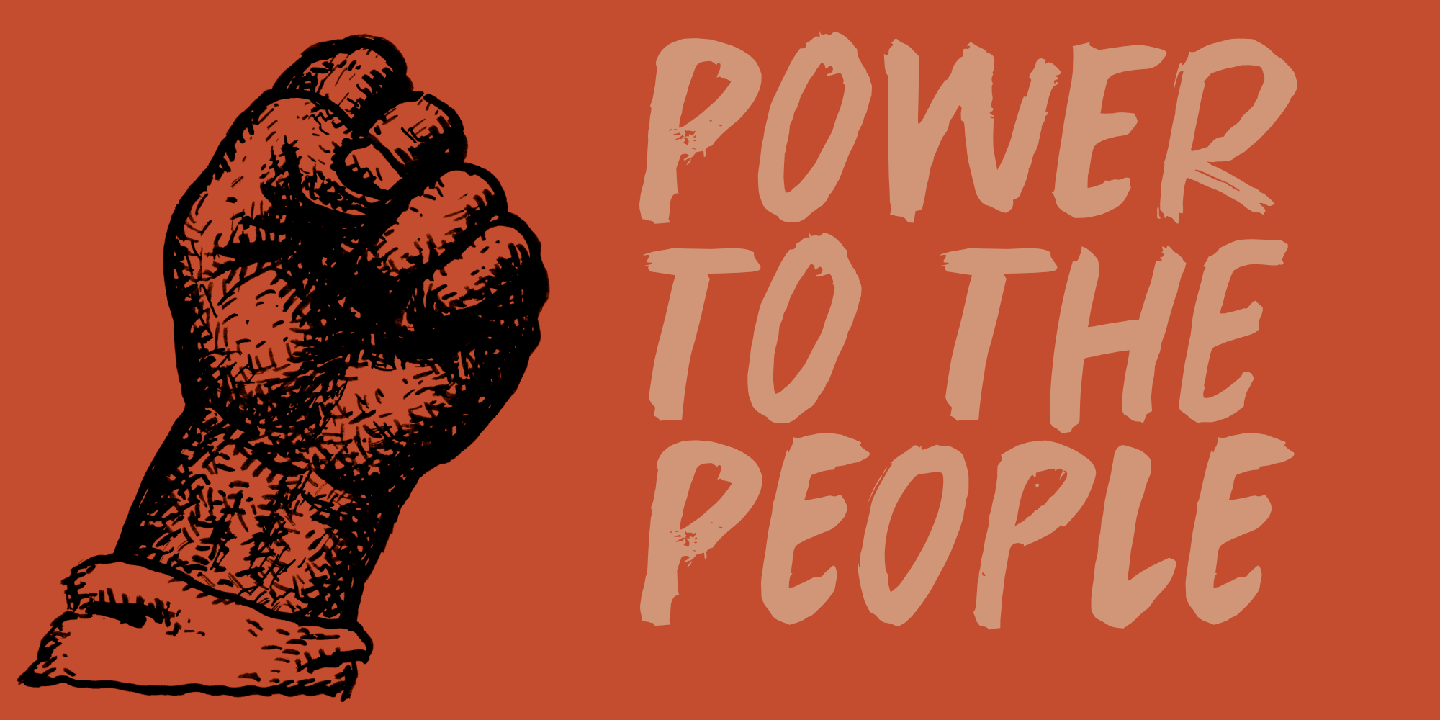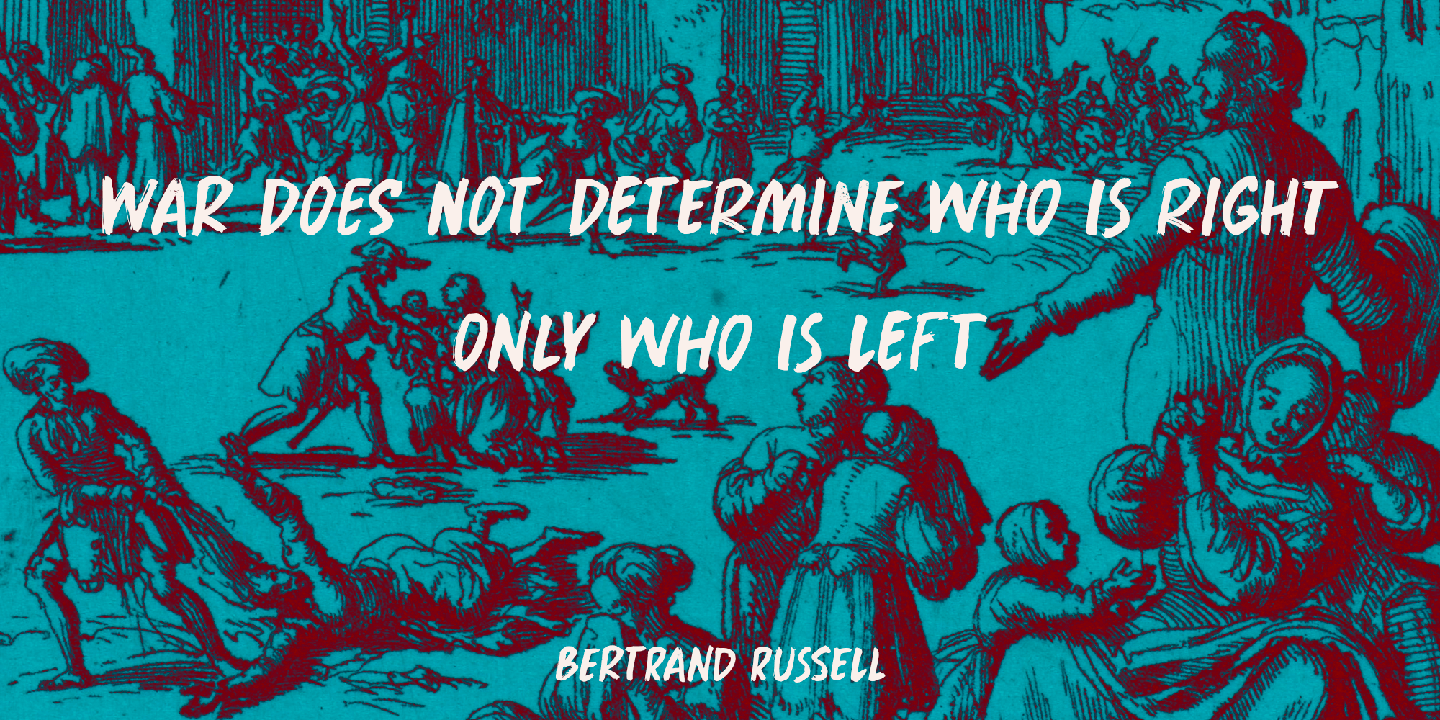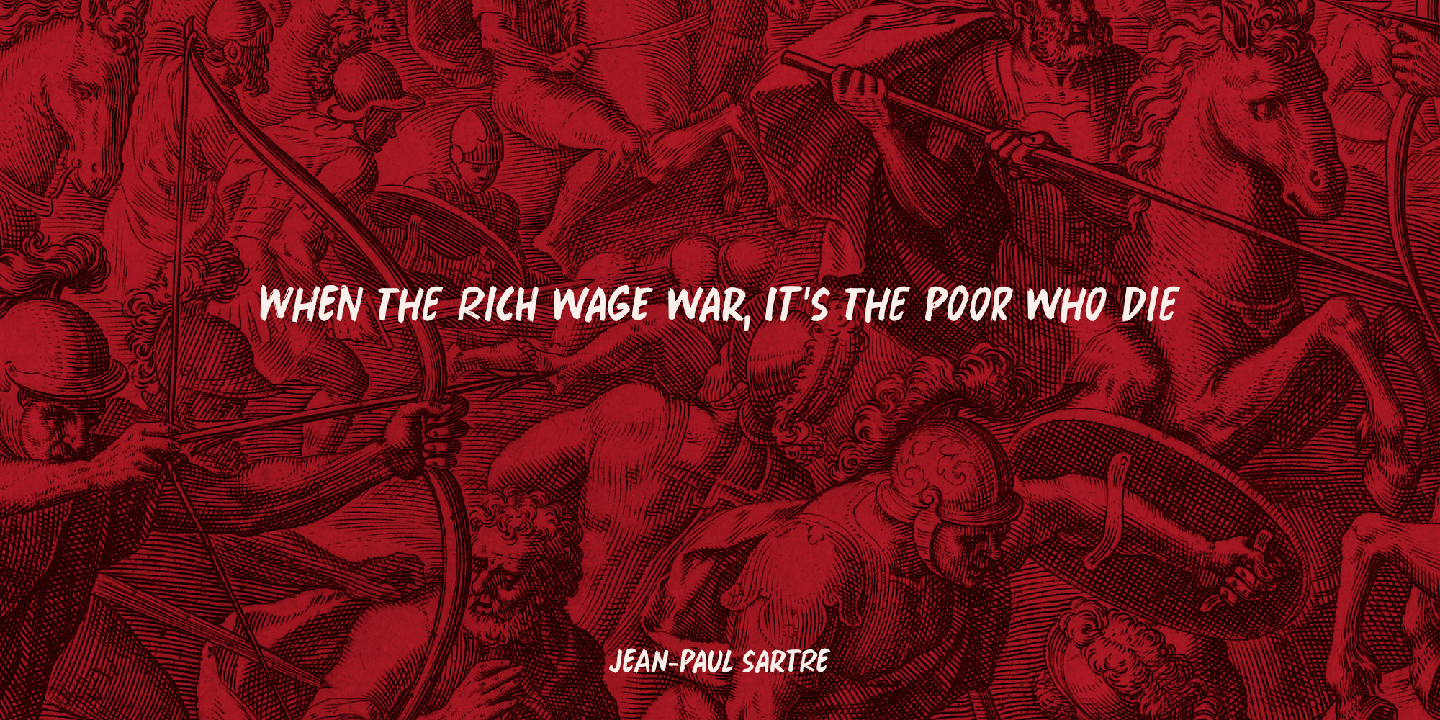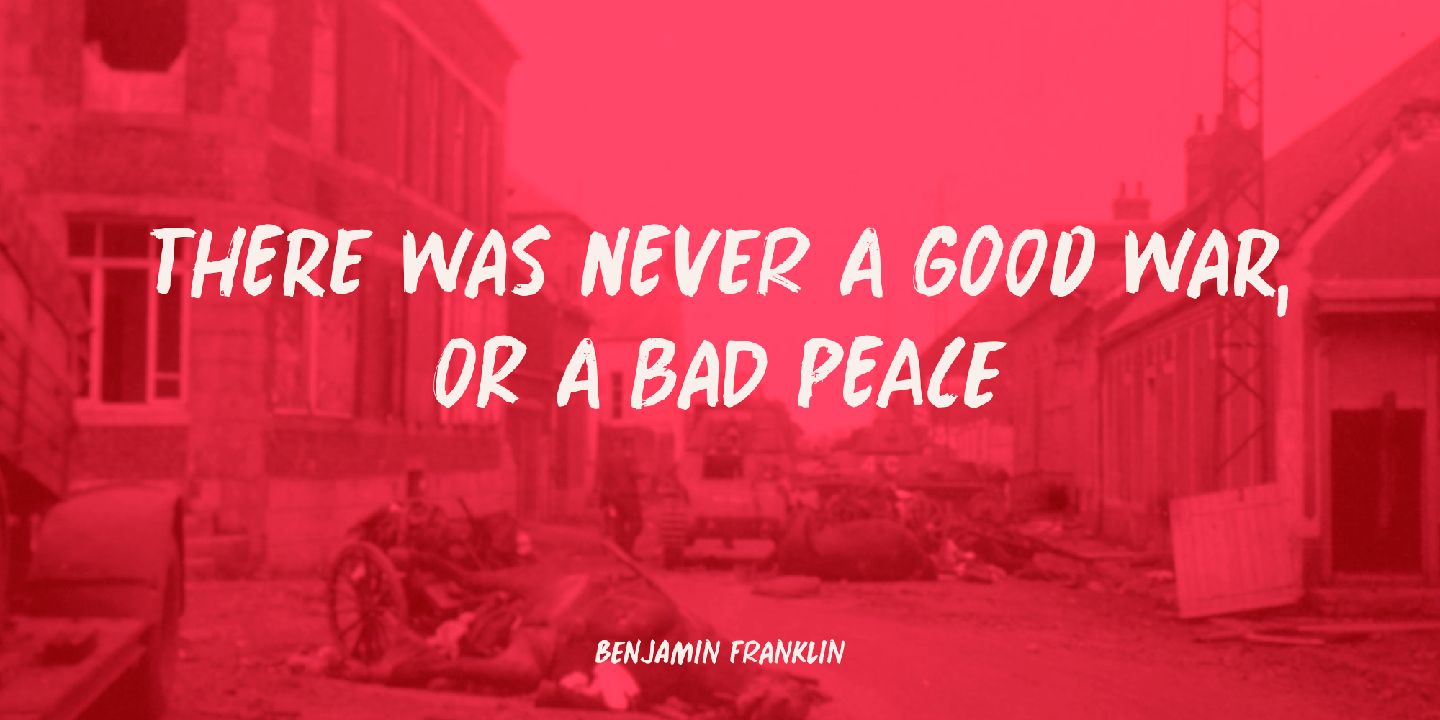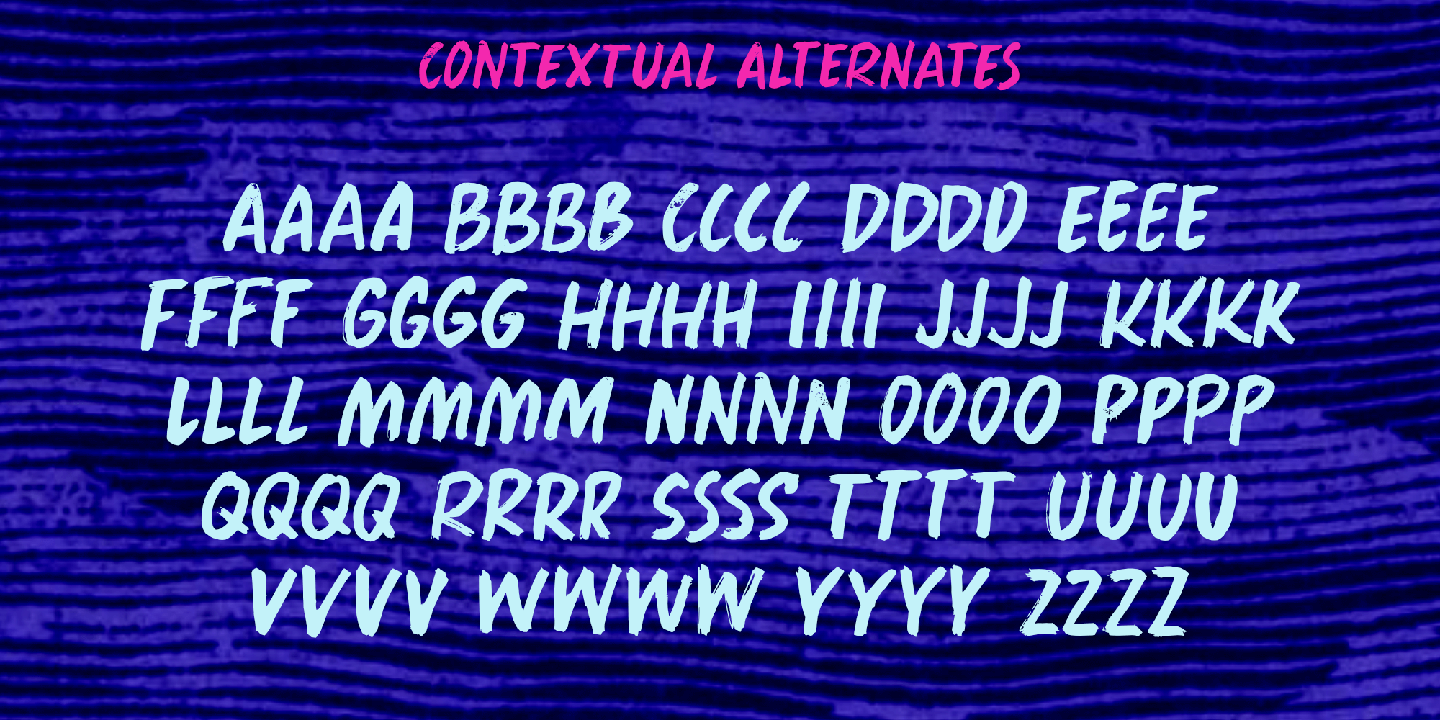
About Instant Protest
Instant Protest is a font I made with a broken satay skewer and Chinese ink. Yes, like so many of my fonts, but these particular tools are my favourites! It is a slightly cursive, yet very legible font. It comes with serious language support (Greek, Vietnamese,…